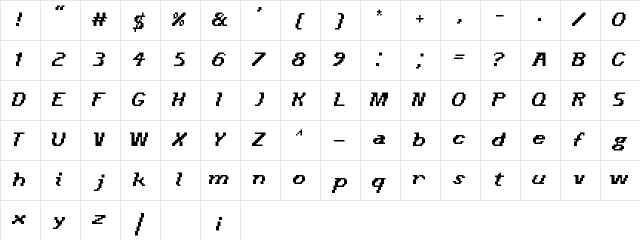
2Credits Medium Free Font
2Credits Medium
Design Context for 2Credits
2Credits is a composed and adaptable typeface that performs quietly and consistently across a wide range of design contexts.
Pro Tip: Use 2Credits in both headline and body roles to test its range before committing to a single application.